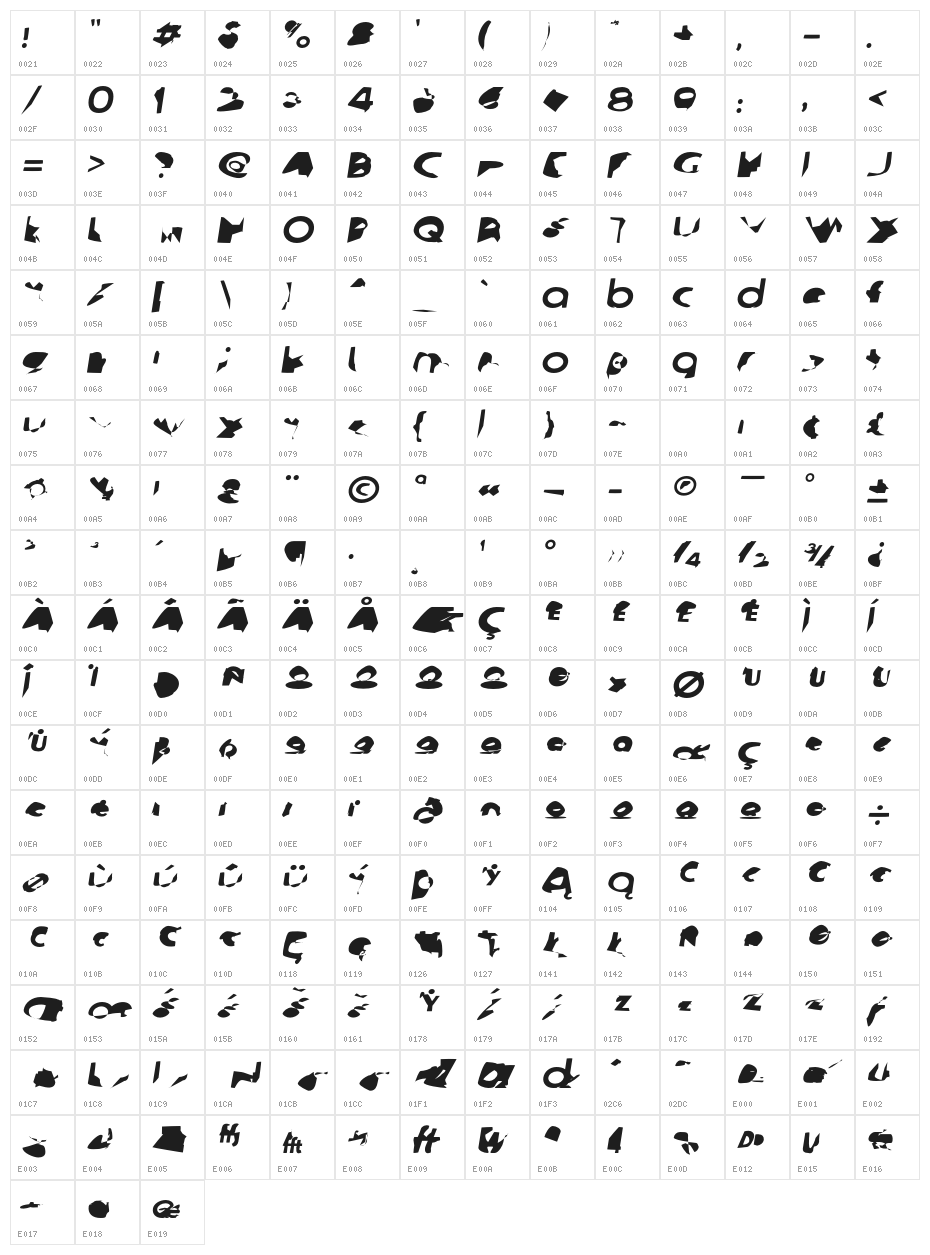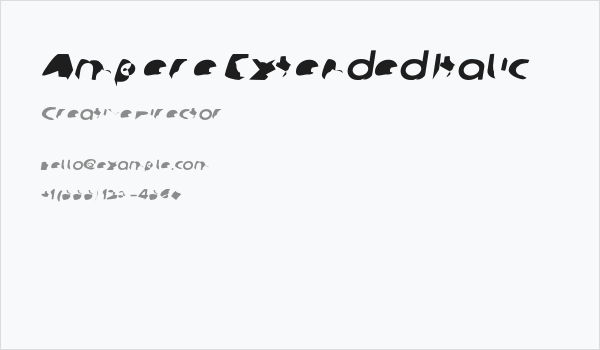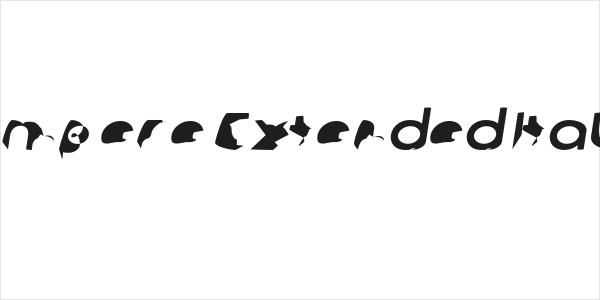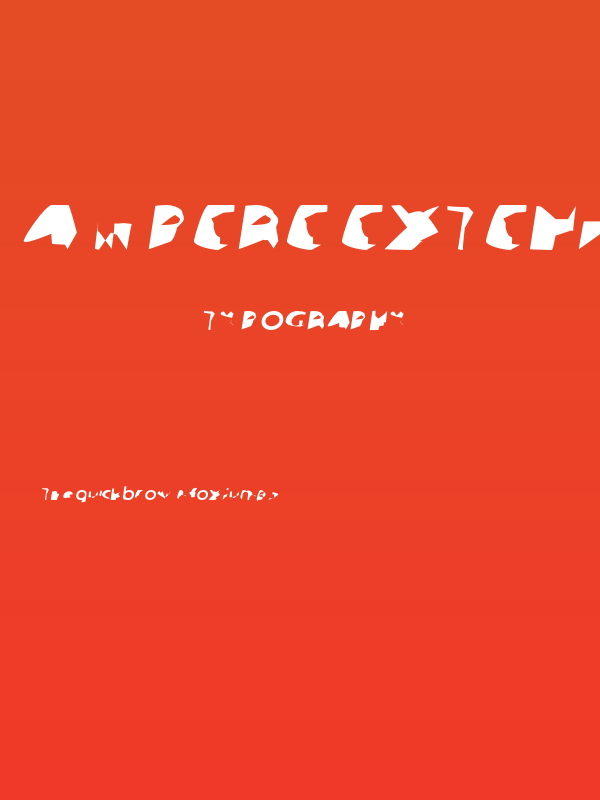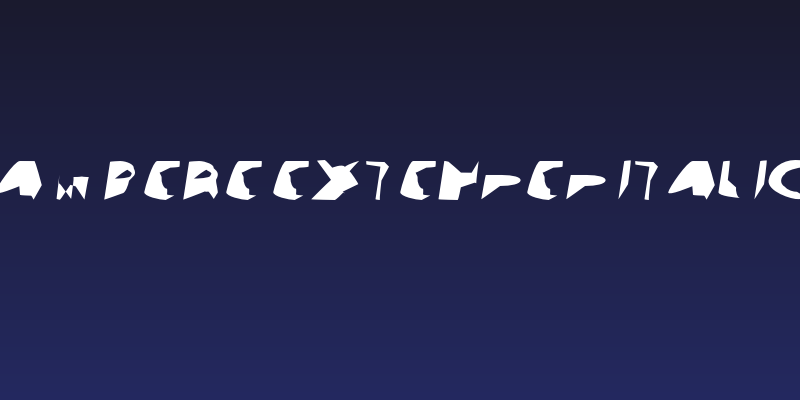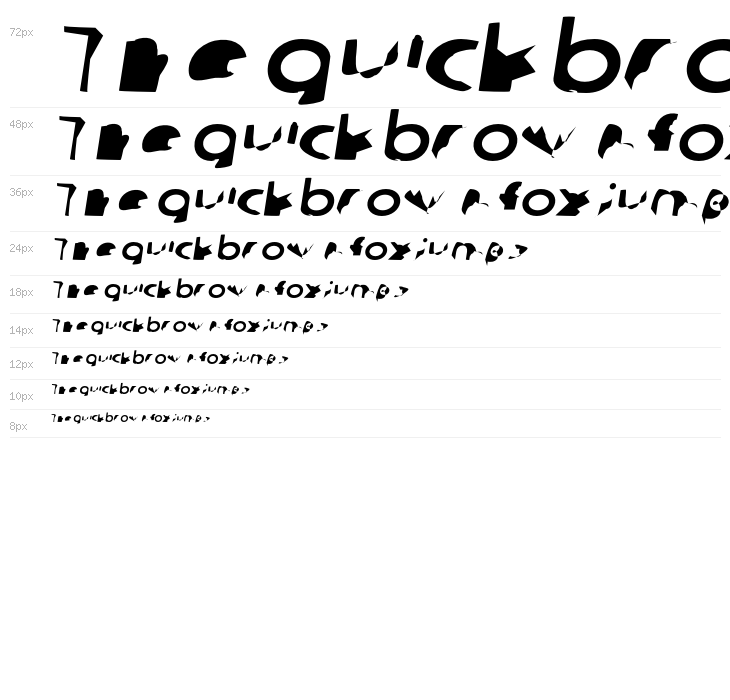
Ampere Extended Italic Font
Ampere Extended Italic Description
This font features a bold and dynamic style with an extended and italicized form. The characters are heavily stylized, with sharp angles and a sense of movement that suggests speed and modernity. The uppercase and lowercase letters maintain a consistent slant, enhancing the italic effect. The numbers and special characters follow the same design principles, ensuring uniformity across all glyphs. The font's unique appearance makes it stand out, with a strong visual impact that is both contemporary and edgy.
| Proposed Projects | Ideal for projects requiring a futuristic or high-energy aesthetic, such as tech branding, sports team logos, or dynamic posters. |